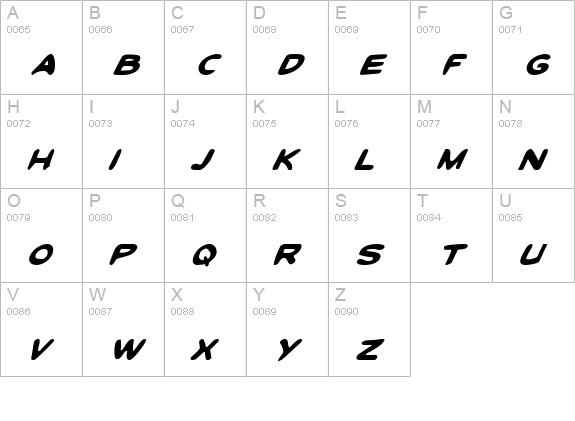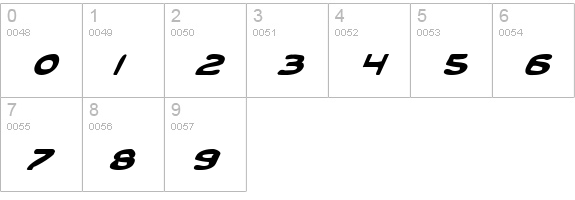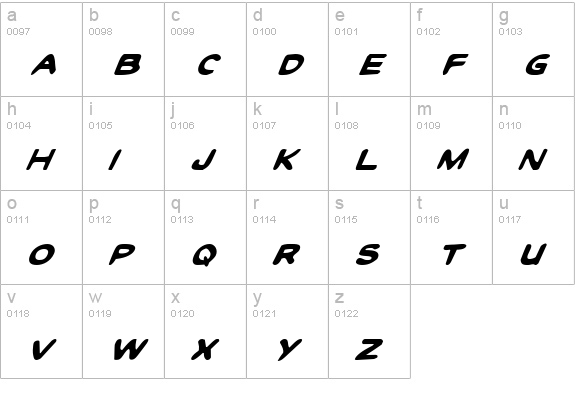
Toon Town Industrial Italic is a distinctive, italic variant in the Toon typeface family \xE2\x80\x94 well suited to design and typography projects.
Introducing Toon Town Industrial Italic font - the perfect blend of whimsy and professionalism. This unique typeface captures the essence of a bustling cartoon town while incorporating an industrial edge. With its slanted and slightly distorted letterforms, Toon Town Industrial Italic brings a playful yet sophisticated touch to any design project. This font is a must-have for designers looking to add a touch of charm to their work. Whether you're designing a logo, creating eye-catching headlines, or crafting a fun invitation, Toon Town Industrial Italic will instantly elevate your design with its distinctive style. One of the best things about Toon Town Industrial Italic font is that it is freely available to download at FontsMarket.com. You can easily access this font and start using it in your projects without any hassle. Its accessibility ensures that you can incorporate this delightful typeface into your designs without breaking the bank. Toon Town Industrial Italic font is designed with versatility in mind, making it suitable for a wide range of projects. Its bold yet whimsical appearance is perfect for children's books, cartoon-inspired websites, and playful branding materials. It adds a touch of nostalgia and character to your designs, instantly grabbing attention and leaving a lasting impression. With its wide range of characters, including uppercase and lowercase letters, numerals, and punctuation marks, Toon Town Industrial Italic font offers endless possibilities for creativity. Its unique letterforms and subtle irregularities give your designs a handcrafted feel, ensuring that your work stands out from the crowd. So why wait? Download Toon Town Industrial Italic font from FontsMarket.com today and unlock a world of design possibilities. Whether you're a professional designer, a hobbyist, or someone looking to add a touch of whimsy to your personal projects, this font is a perfect choice. Embrace the charm and versatility of Toon Town Industrial Italic and watch as your designs come to life with a playful and captivating energy.